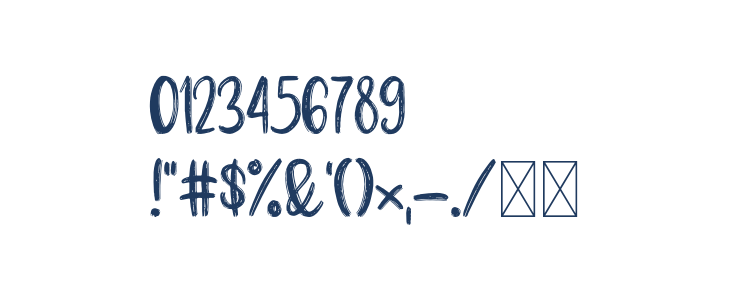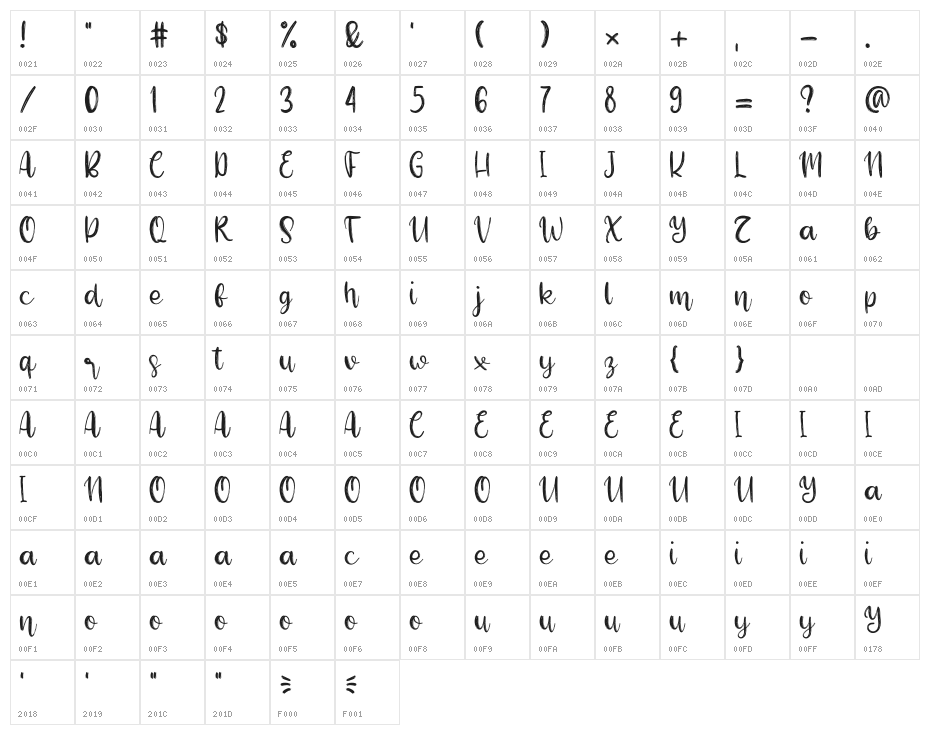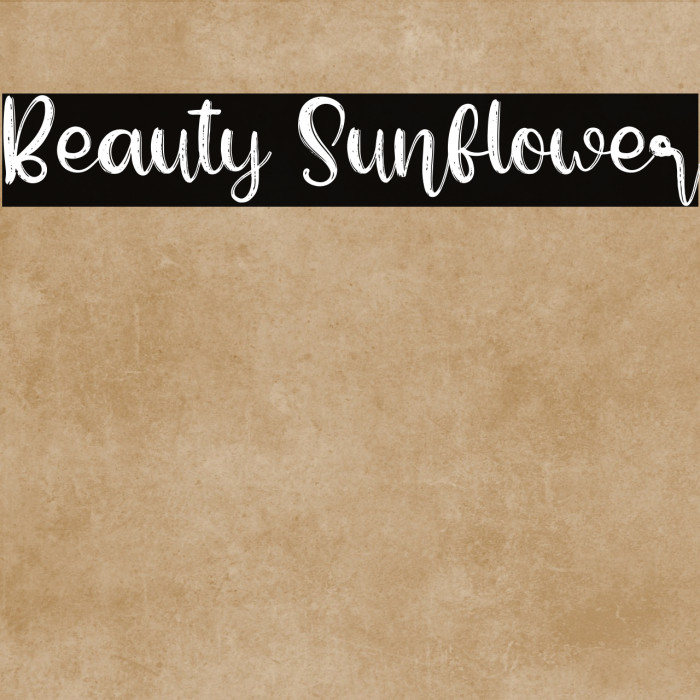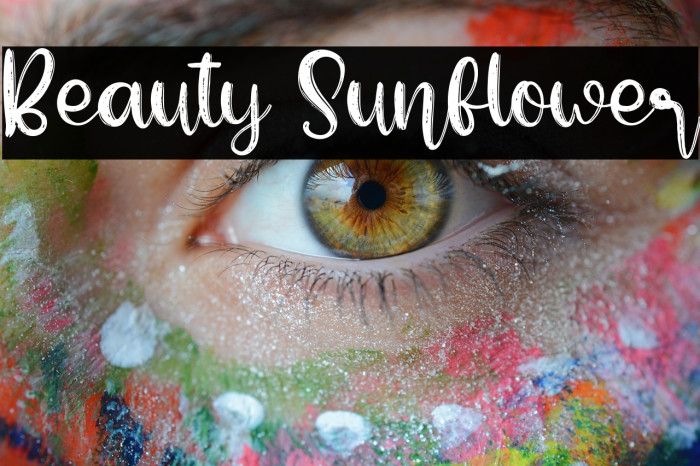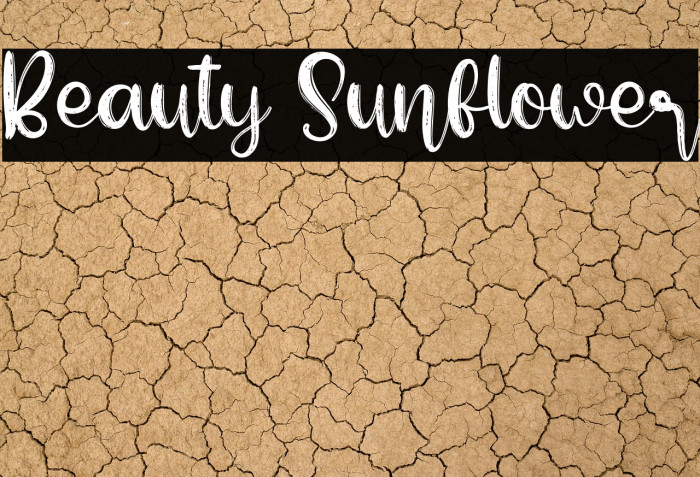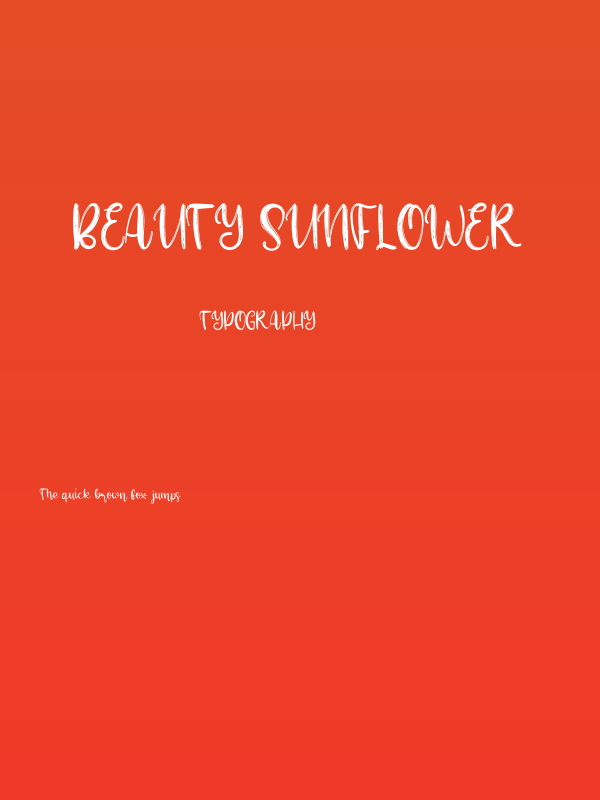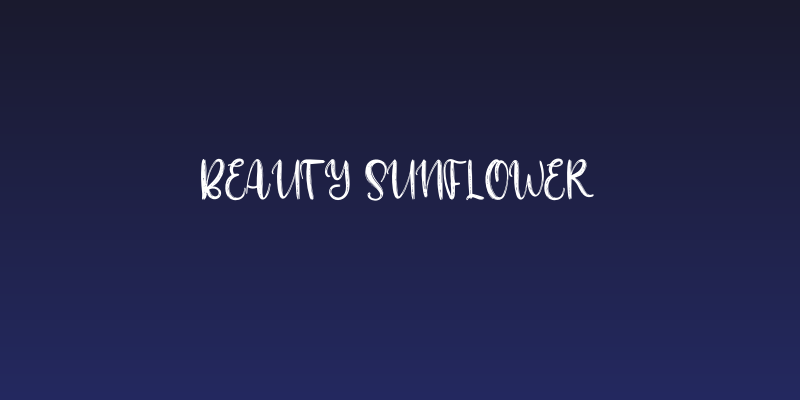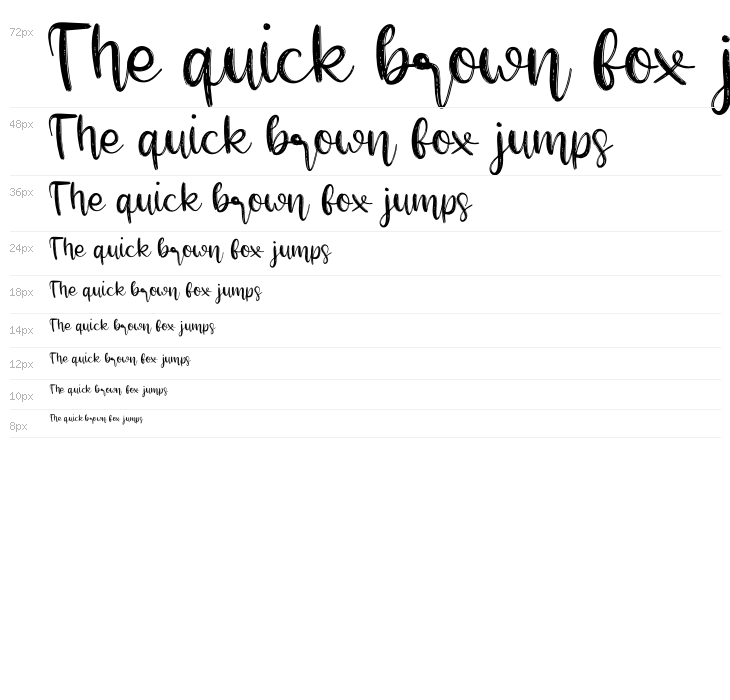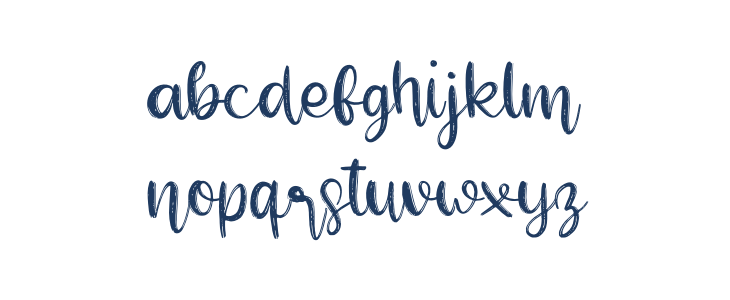
Beauty Sunflower Font
Beauty Sunflower Description
This font exudes a playful and artistic flair, characterized by its hand-drawn, brush-like strokes that give it a lively and dynamic appearance. The letters are slightly slanted, adding a sense of movement and energy. The uppercase and lowercase letters maintain a consistent style, with rounded edges and varying stroke widths that create a textured look. The numbers and special characters follow the same aesthetic, ensuring a cohesive design throughout. This font is ideal for projects that require a personal touch, such as invitations, greeting cards, or creative branding. Its unique style makes it stand out, while still being legible and versatile.